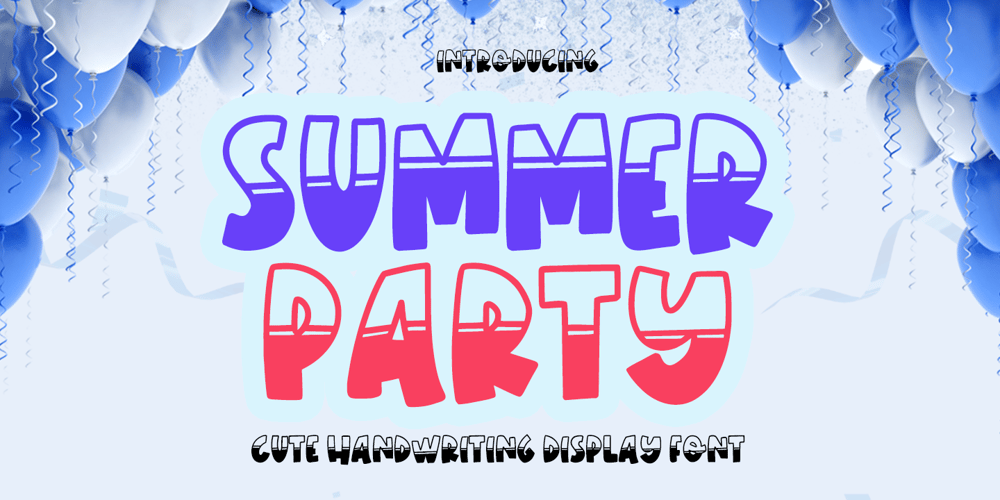
Summer party Font Family was designed by Muhammad Zaini and published by Cocodesign. Summer party contains 1 styles and family package options. Unveiling ‘Birthday Party’, a captivating handcrafted font transforming daily design initiatives into an engaging visual festivity. Perfectly suited for your winter-themed endeavors, this font flawlessly enhances charm to clothing designs, holiday ornaments, SVG schemes, stickers, and more. Birthday Party infuses dynamic vitality to elevate your creations and deliver a heartfelt message that resonates with viewers. More than just typograph, it’s a summons to exhilaration, turning each project into a uniquely personal and festive communication.